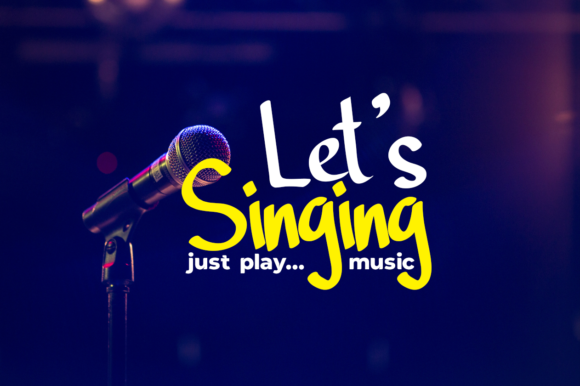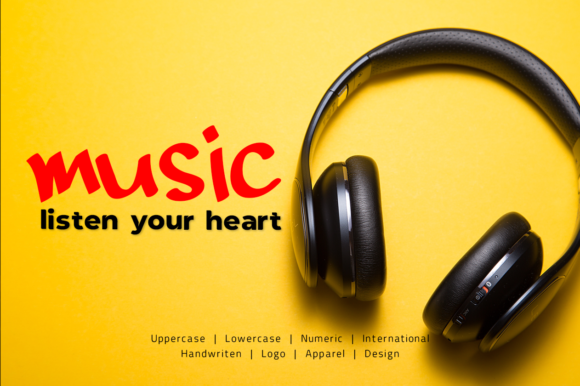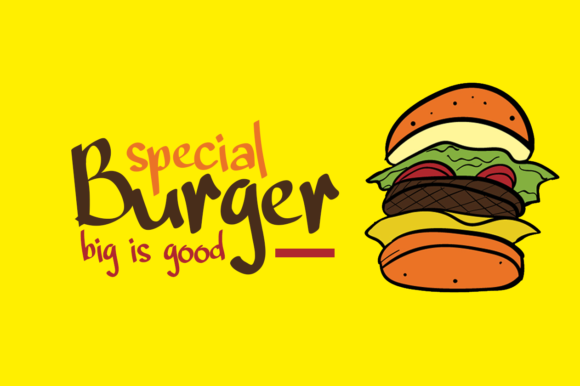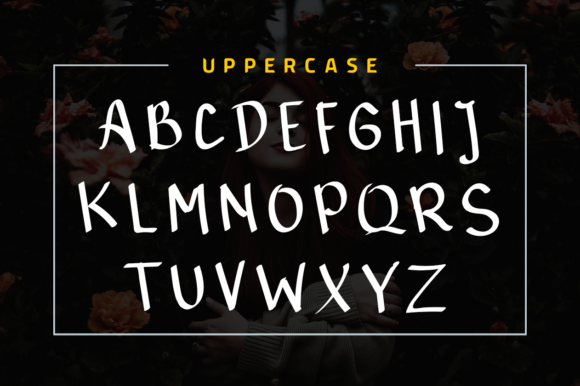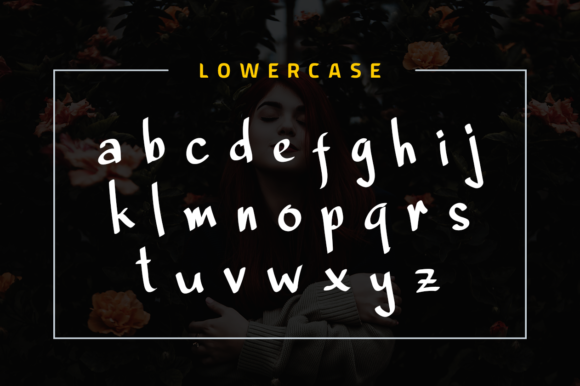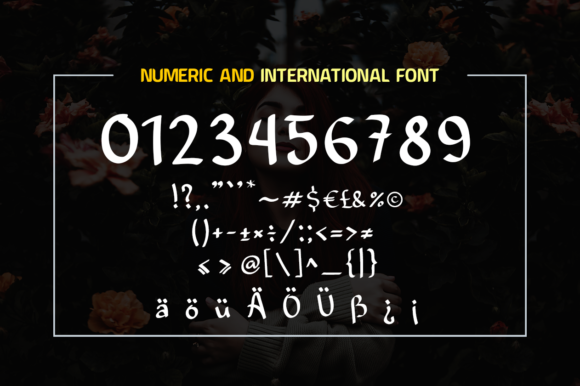
The Ameliarose Font: A Fun and Bold Display Font to Elevate Your Designs
I’ll never forget the time I was working on a project for a client who wanted a bold, eye-catching font to make their brand stand out. I scoured the internet for hours, trying out font after font, but nothing seemed quite right. That was until I stumbled upon the Ameliarose font. With its fun, playful vibe and bold display, it was the perfect fit for my client’s design. In this article, I’ll share my experience with the Ameliarose font, including what I love about it, its quirks, and how to use it on different platforms.
An Honest Review of Ameliarose Font
What I Love About Ameliarose Font
- ✨ Unique and playful design: The Ameliarose font has a one-of-a-kind look that’s sure to make your designs stand out.
- ✅ Easily readable: Despite its bold and playful design, the Ameliarose font is surprisingly easy to read, even at smaller sizes.
- 💃 Versatile: This font is perfect for a wide range of design projects, from posters and flyers to social media graphics and branding materials.
While the Ameliarose font is amazing, it’s not perfect. Here are a few things to keep in mind:
- 🤔 Limited use in body text: While the Ameliarose font is easy to read, it’s not the best choice for long blocks of body text. It’s better suited for headings and titles.
- ⚠️ Some characters may not work well in all contexts: As with any font, some characters may not work well in all contexts. For example, the font’s playful design may not be suitable for formal or professional designs.
- Use the font’s OpenType features, such as glyphs and stylistic alternates, to add visual interest to your design.
The Backstory of Ameliarose Font
The Ameliarose font was designed by a team of typographers who wanted to create a font that was both fun and functional. The font’s design is inspired by the playful, whimsical feel of hand-drawn fonts, with a bold and eye-catching look that’s perfect for designs that need to stand out.
Q: What is the Ameliarose font?
A: The Ameliarose font is a fun and bold display font with a cute feel. It’s perfect for designs that need a playful and eye-catching vibe.
Q: Is the Ameliarose font suitable for body text?
A: No, the Ameliarose font is not suitable for long blocks of body text. It’s better suited for headings and titles.